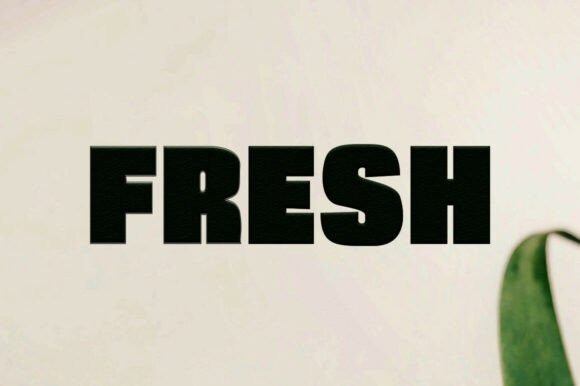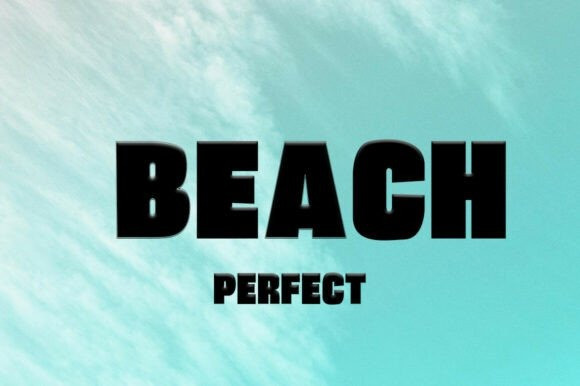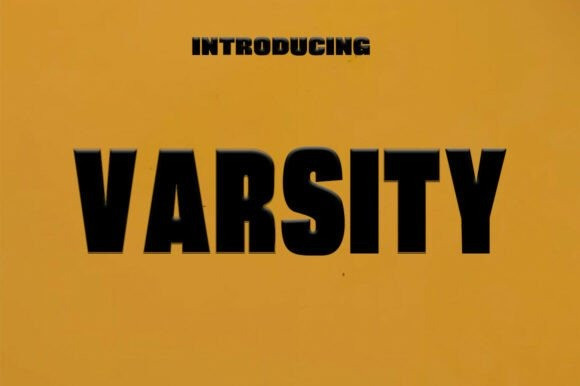
Varsity Font
Varsity Font is a sans serif display font synonymous with athletics and American high schools. With its bold, geometric letterforms, it’s often used for sports-themed designs, such as team logos, varsity jackets, game posters, or school visual identities.